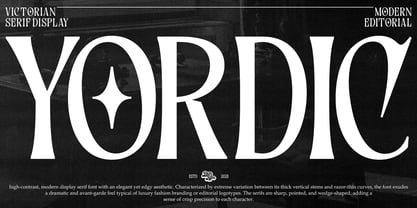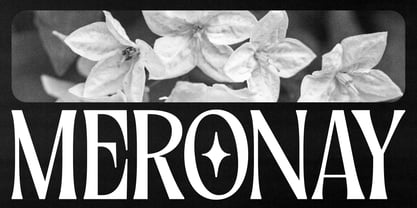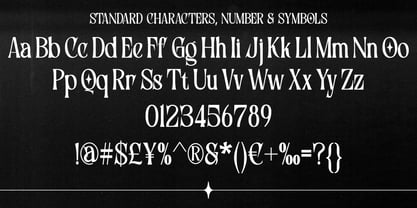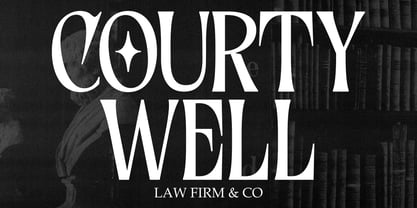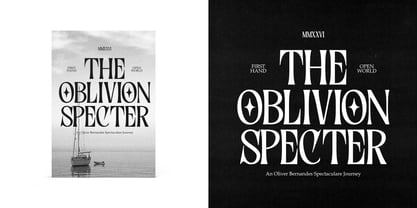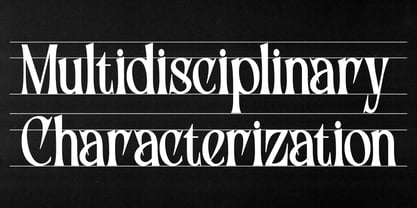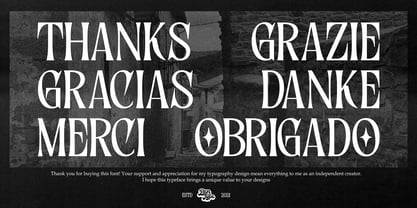
Yordic
von Bentype
Die Schriftfamilie Yordic wurde von Muhammad Farkhan entworfen und von Bentype veröffentlicht. Yordic enthält 1 Stile. Mehr über diese Familie
Step into a world of timeless elegance with this decorative modern serif font. Inspired by Victorian aesthetics and old-world typography, it features tall, slender letterforms, graceful curves, and distinctive ornamental details that create a luxurious and sophisticated appearance. The unique character shapes, combined with refined contrast and artistic flourishes, make this typeface perfect for designs that demand attention and personality.
Whether used for branding, packaging, editorial layouts, posters, invitations, or vintage-inspired signage, this font delivers a bold yet elegant visual impact. Its handcrafted feel and theatrical charm evoke the glamour of the 1920s while maintaining excellent readability for modern design applications.
Perfect for: Vintage branding, Art Deco projects, luxury packaging, book covers, restaurant menus, wedding invitations, posters, logos, and creative display typography.
Designer: Muhammad Farkhan
Foundry: Bentype